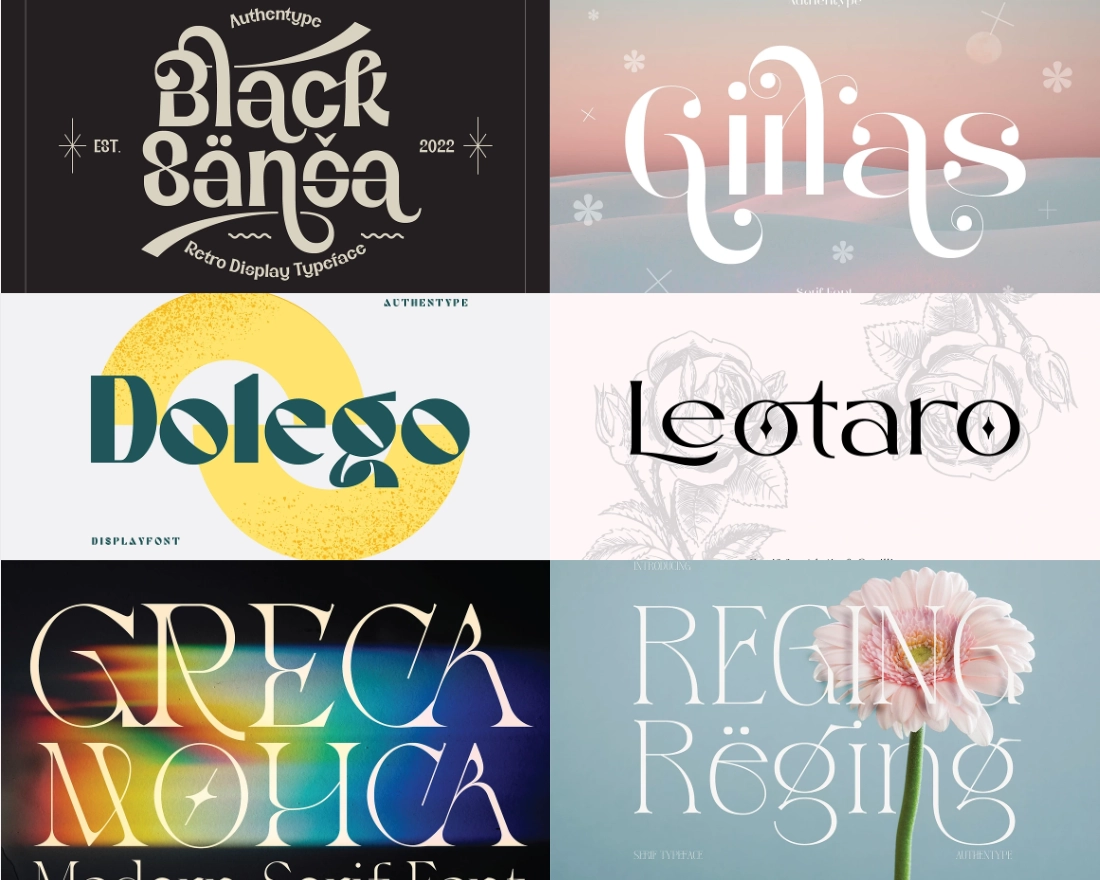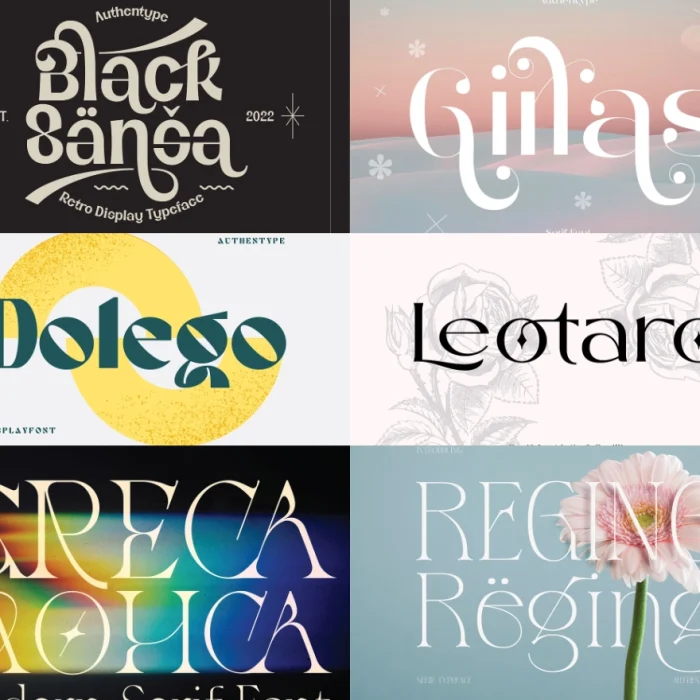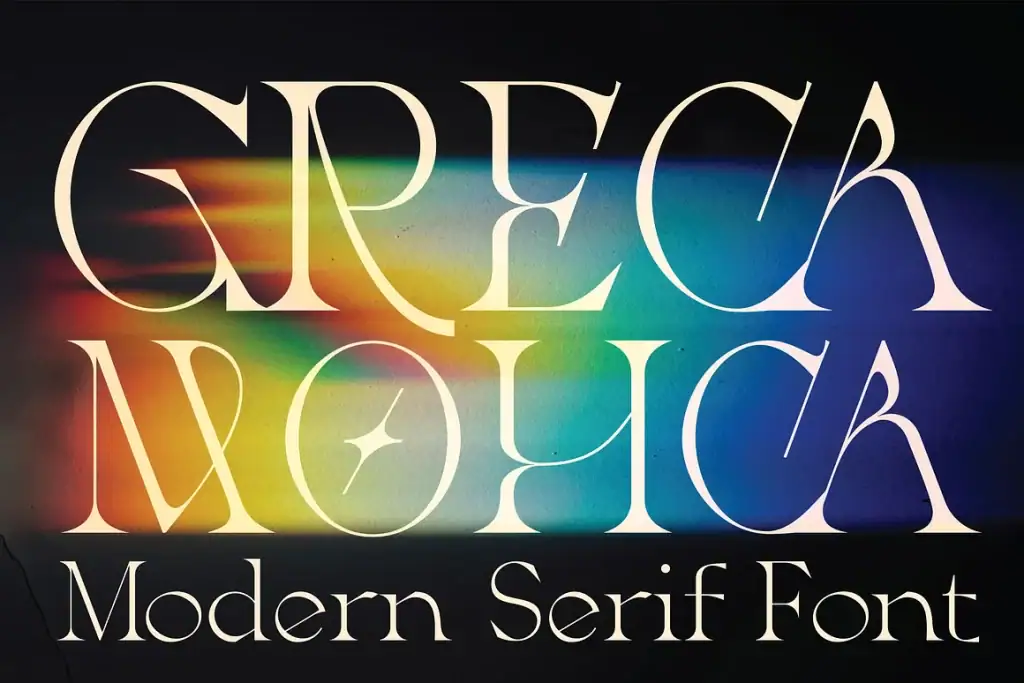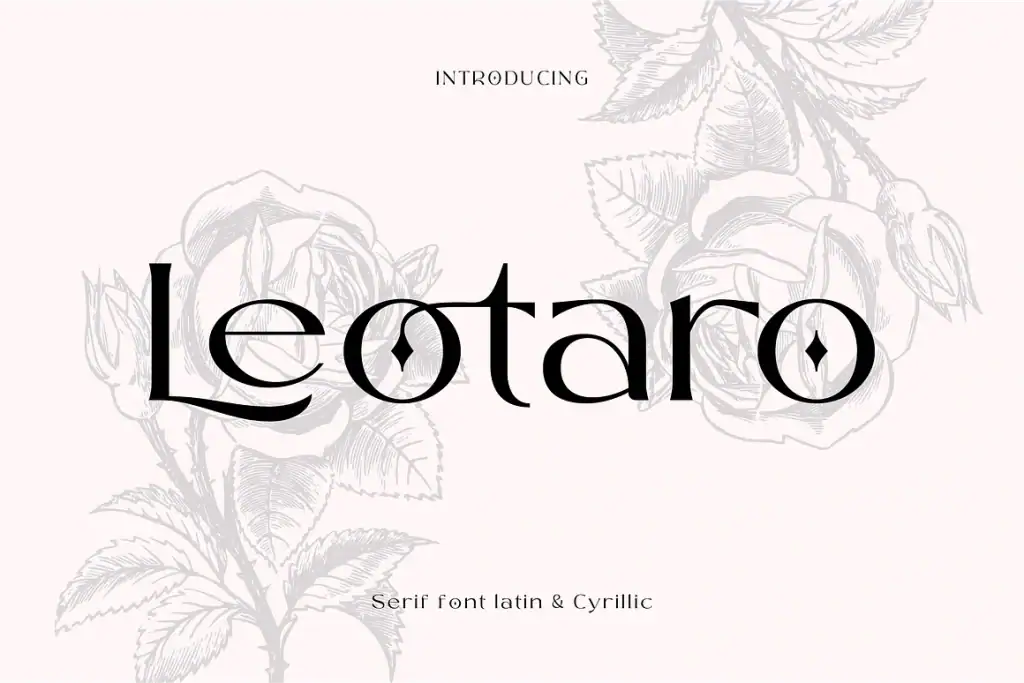
Why Choosing the Right Font is Crucial for Beauty Brands
In the beauty industry, typography elegant fonts is the second face of your brand after the logo. High-contrast serif fonts add a premium and feminine touch. These fonts provide a sense of elegance. On the other hand, bold retro display fonts bring a playful yet stylish character for sub-brands.
The key elements are elegance, readability, and licensing flexibility. These are especially important when your logo will appear across multiple media. This includes packaging, websites, retail partnerships, and even apps.
Quick Criteria for Selecting Fonts for Beauty Logos
✔ High contrast & fine details → luxurious look, ideal for skincare or luxury makeup
✔ Alternates & ligatures → gives a custom and exclusive feel
6 Recommended Fonts for Beauty Brand Logos
1) Black Sansa — Bold Retro with Chic Personality
Style: A bold retro display font with complete uppercase and lowercase, ligatures, and multilingual support.
Best for: Sub-brands that want a vintage glam look (perfect for haircare collections or nostalgic campaigns).
Where to use: Seasonal collections, packaging headlines, retro-style posters.
Tip: Pair Black Sansa for the logo with a thin modern sans for body text.
2) Dolego — Strong Retro Statement
Style: Thick retro style that exudes confidence—giving a bold, modern vintage vibe.
Best for: Hair tools or body care brands that want to stand out on the shelf.
Where to use: Short wordmarks (4–7 letters); perfect for embossed or foil packaging.
3) Girlas — Elegant Serif for Feminine Premium Brands
Style: A beautifully contrasted serif designed to deliver sophistication and femininity.
Best for: High-end beauty brands, editorial projects, or luxury skincare packaging.
Where to use: Premium skincare logos, spa boutiques, lookbook titles.
4) Greca — Modern Serif with Stylistic Alternates
Style: Clean, modern serif that comes with stylistic alternates for a more bespoke logotype.
Best for: Brands that want a custom feel for their logo design.
Where to use: Premium logos requiring multiple character variations for unique shapes.
5) Leotaro — Serif with Latin & Cyrillic Support (Global Scale)
Style: Elegant fonts serif supporting both Latin and Cyrillic scripts; includes OTF/WOFF/WOFF2 formats.
Best for: Beauty brands targeting international markets or multilingual audiences.
Where to use: Global cosmetics brand logos, multilingual packaging, e-commerce websites.
6) Reging — Elegant Serif for Beauty Branding
Style: A clean and flexible elegant fonts, explicitly recommended for beauty branding and editorial projects.
Best for: Packaging, magazines, and digital branding.
Where to use: Skincare logo design, product packaging typography, website headers.
Style Directions (to Make Selection Easier)
✔ Luxury & editorial: Girlas / Greca → high contrast and beautiful alternates
✔ Playful retro chic: Black Sansa / Dolego → bold, distinctive, and memorable
✔ Global expansion: Leotaro → multilingual support for Latin & Cyrillic
✔ Beauty-first versatile: Reging → designed for beauty branding and packaging
Pro Tips Before Finalizing Your Logo
✅ Test tricky letter pairs: “ri, fi, tt, st, ar, er” → activate ligatures for smoother shapes
✅ Check small-size rendering: ensure thin serifs remain visible on small-scale prints
✅ Contrast on glossy packaging: choose serif fonts with strong stems so they don’t disappear when printed with foil
Quick Font Pairing Ideas
✔ Girlas / Greca (for logo) + thin modern sans (for UI & packaging details) → sleek & luxurious
✔ Black Sansa / Dolego (for logo) + light humanist serif (for tagline) → retro premium feel